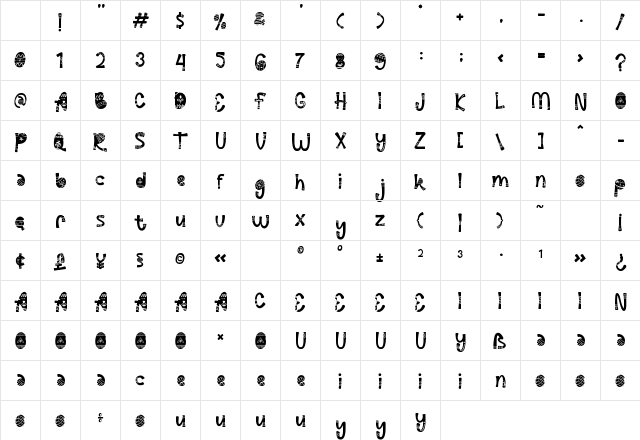
Complete Palm Sunday Decorative Regular glyph index. Displaying only characters natively supported by Palm Sunday Decorative Regular font.
Palm Sunday Decorative is built around its visual character rather than neutral utility - its distinctive forms are designed to make an impression at display sizes.
Font Pairing: Pair with a clean neutral sans-serif for body copy to let Palm Sunday Decorative's character lead without overwhelming the composition.
Pro Tip: Use Palm Sunday Decorative exclusively at display sizes - it was designed to be seen, not read at length. Let a neutral companion handle body copy.